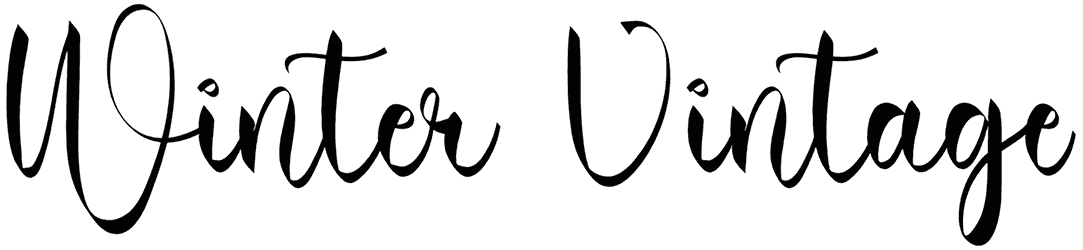
Winter Vintage Font
Back to you with another mesmerizing piece of work to astonish all of the audience who eagerly follow your design. Here, Winter Vintage font with motivational yet natural outward comes across to make all of your branding, comic design, invitations, and more stand out.